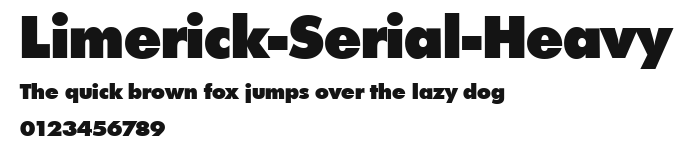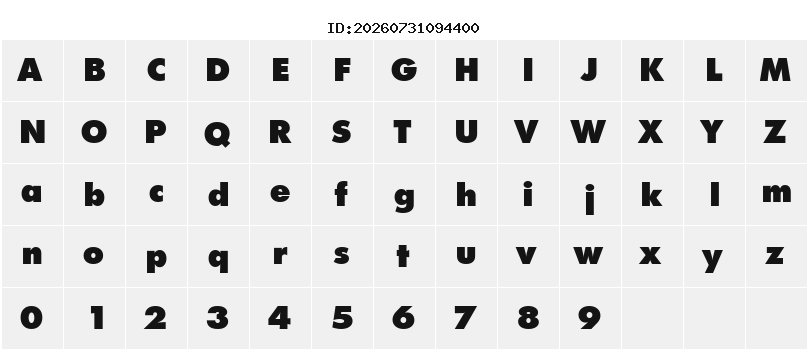
• Font Name: Limerick-Serial-Heavy
• Full Font Name: Limerick-Serial-Heavy-Regular
• PostScript Name: Limerick-Serial-Heavy-Regular
About Limerick-Serial-Heavy.ttf
Limerick-Serial-Heavy.ttf is a modern, elegant sans-serif font designed for ultimate readability and visual harmony. Perfect for branding, headlines, web design, and print materials.